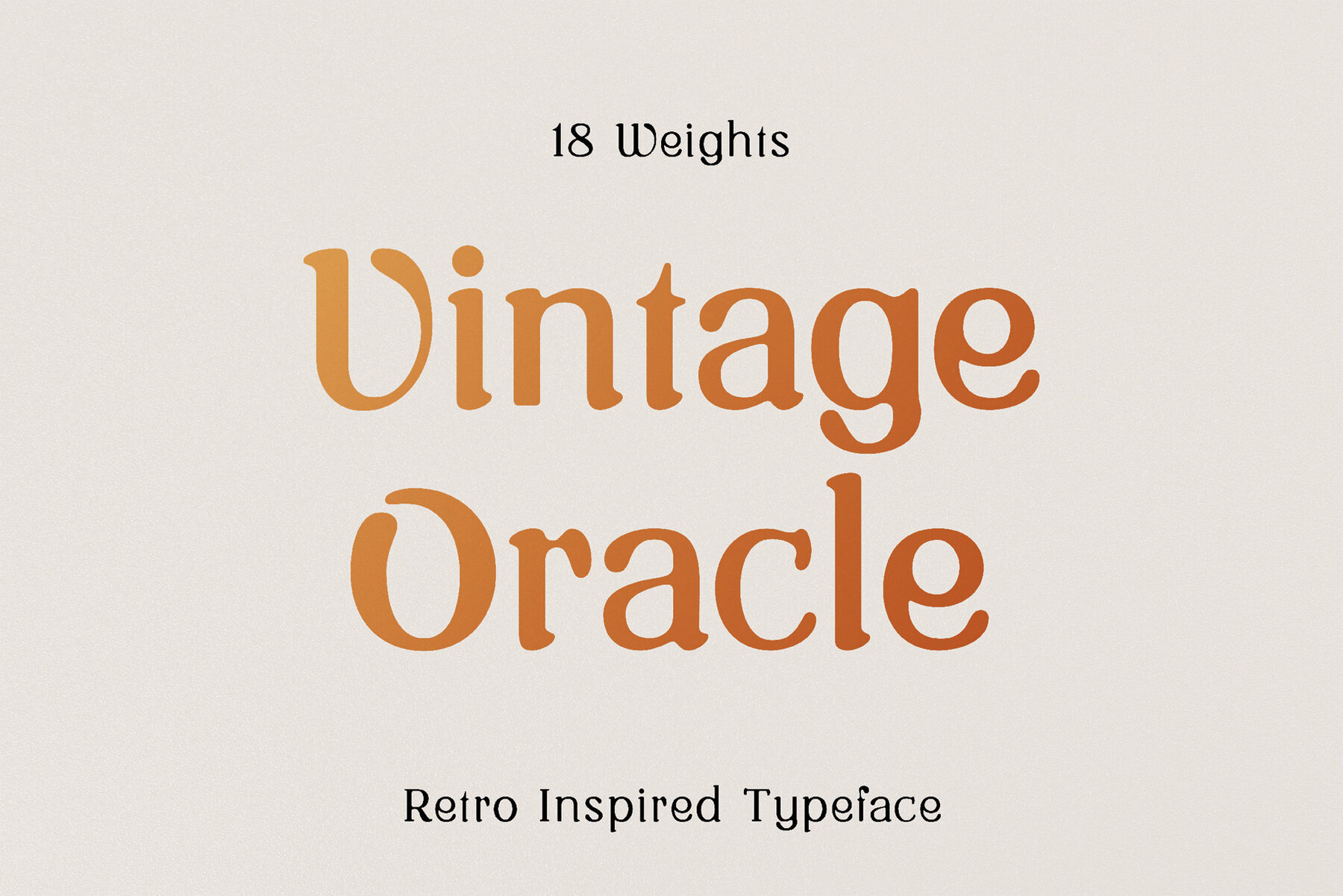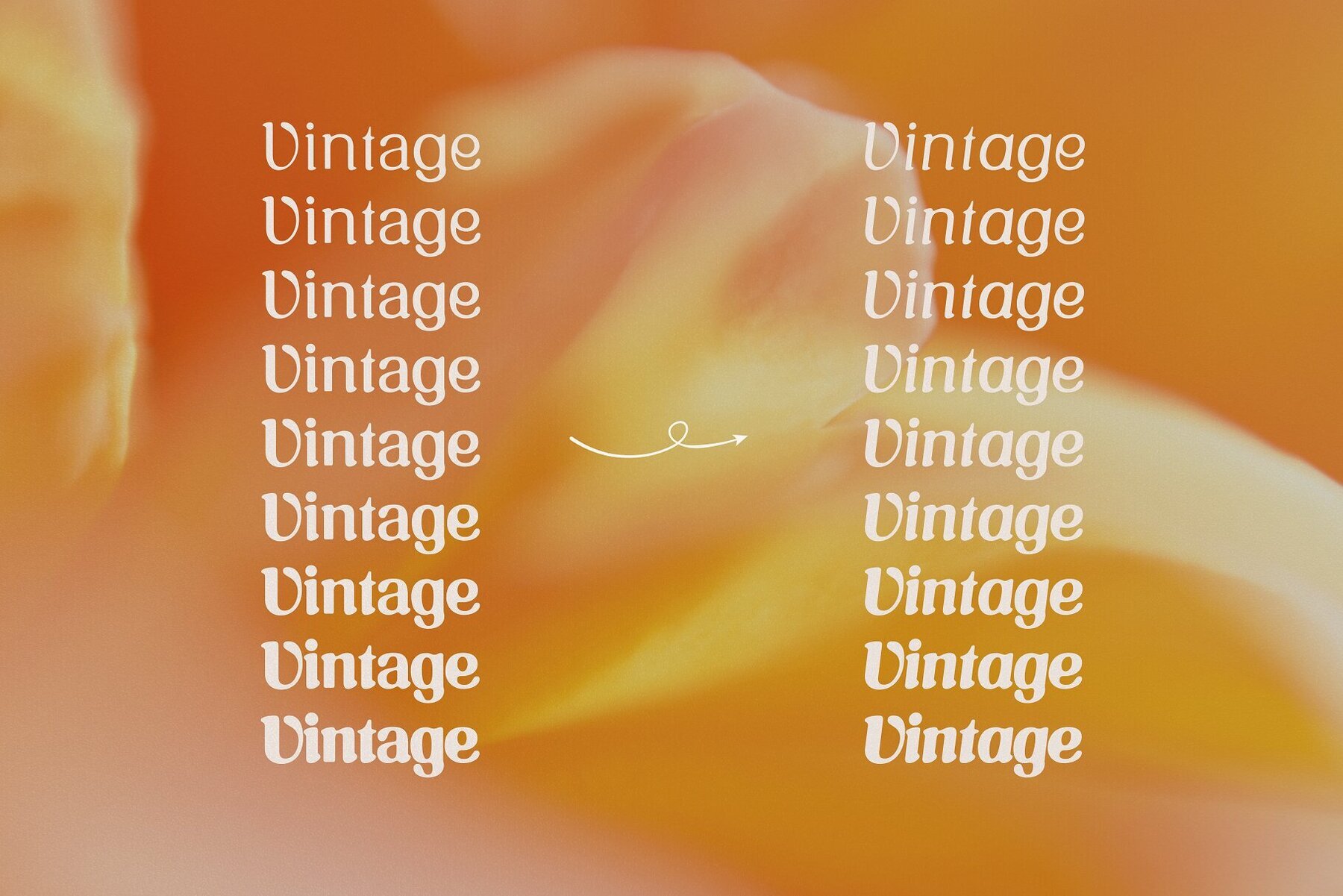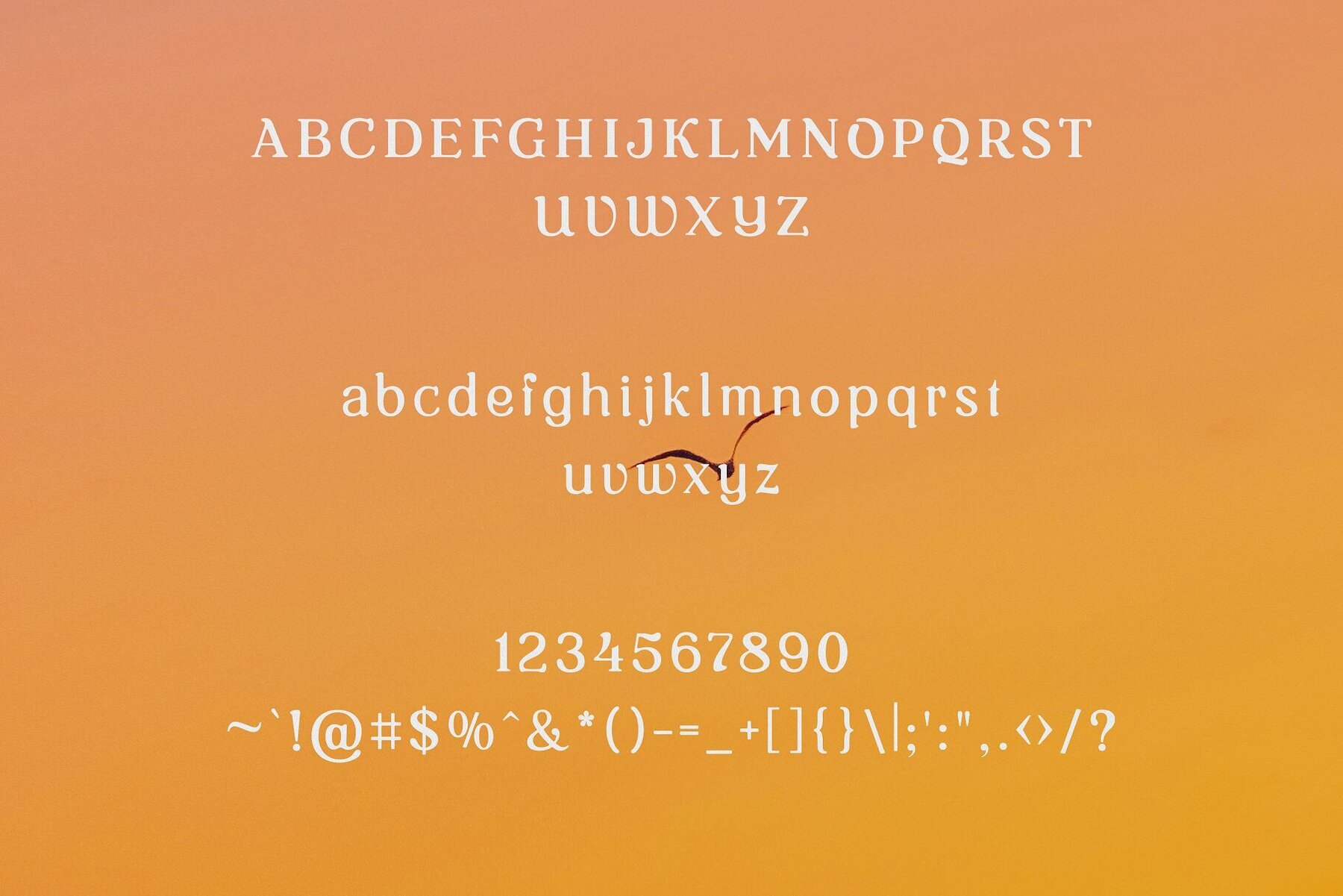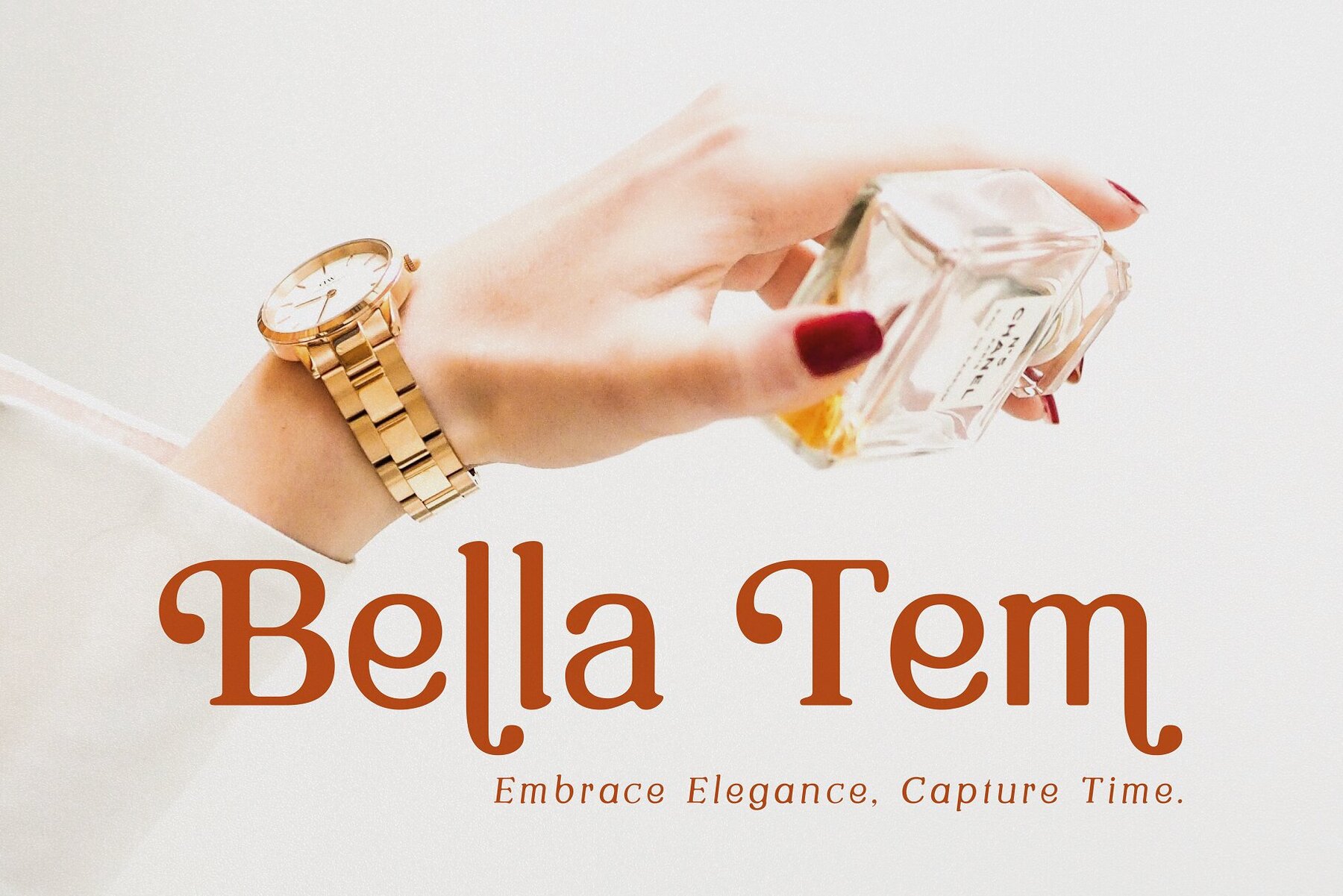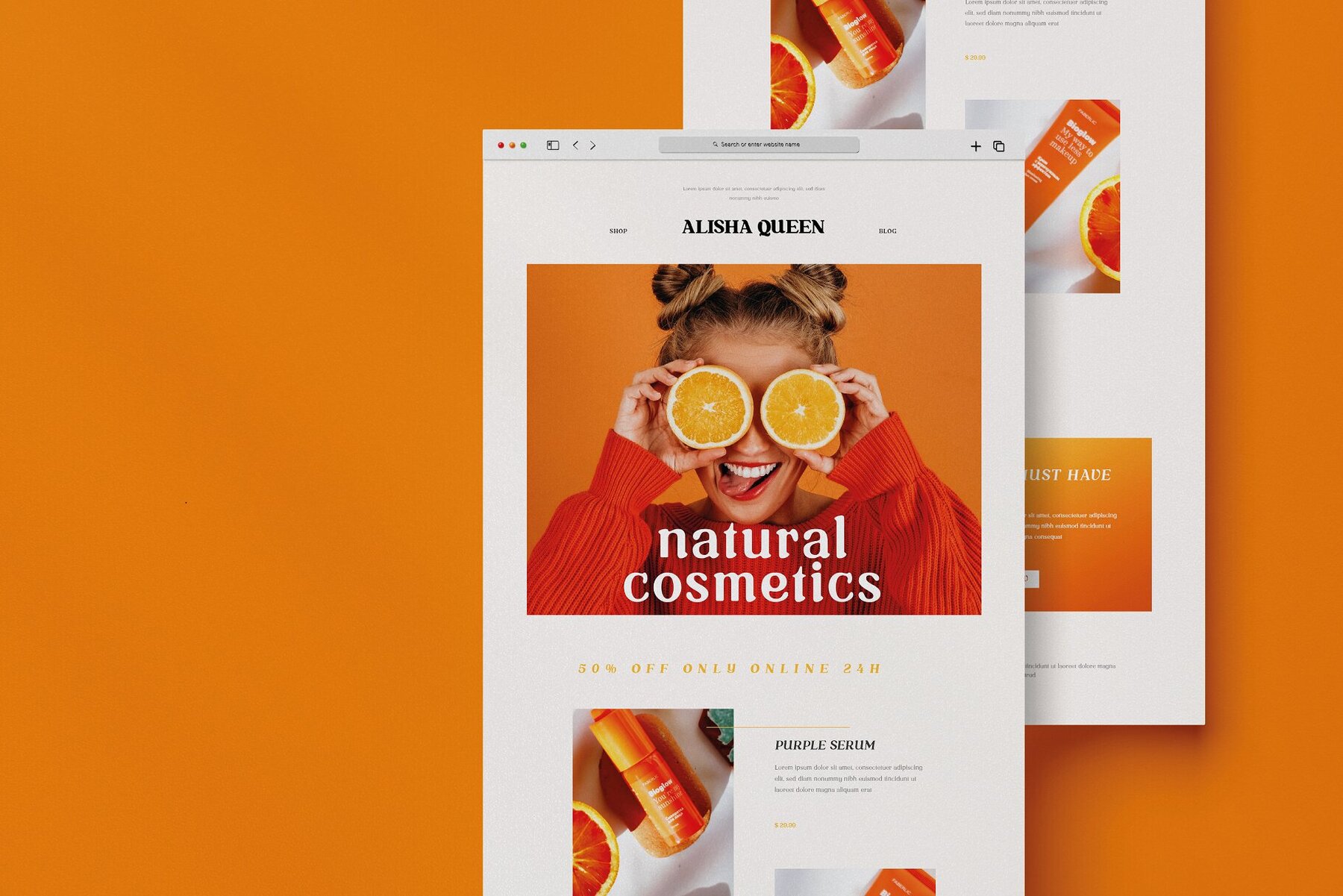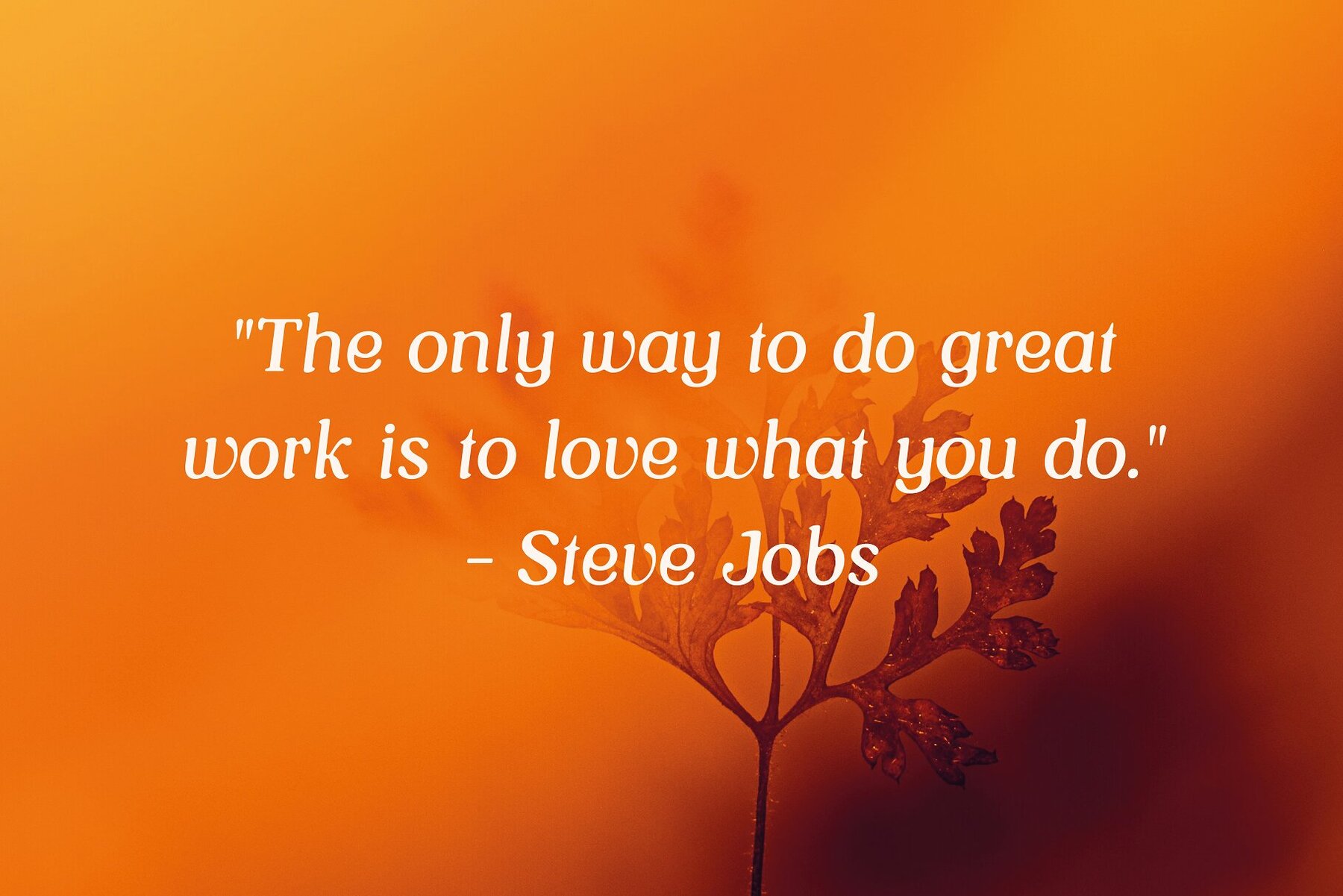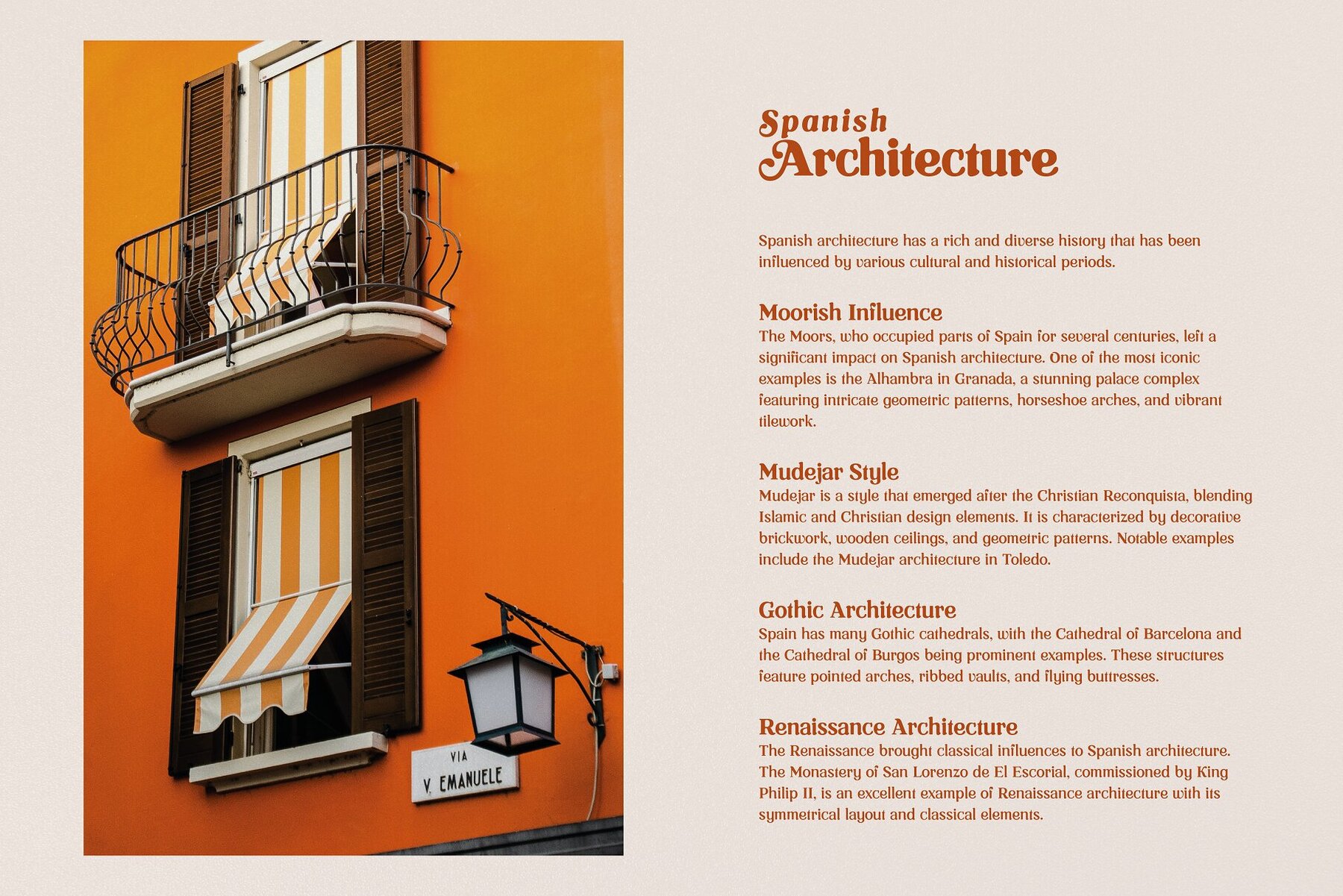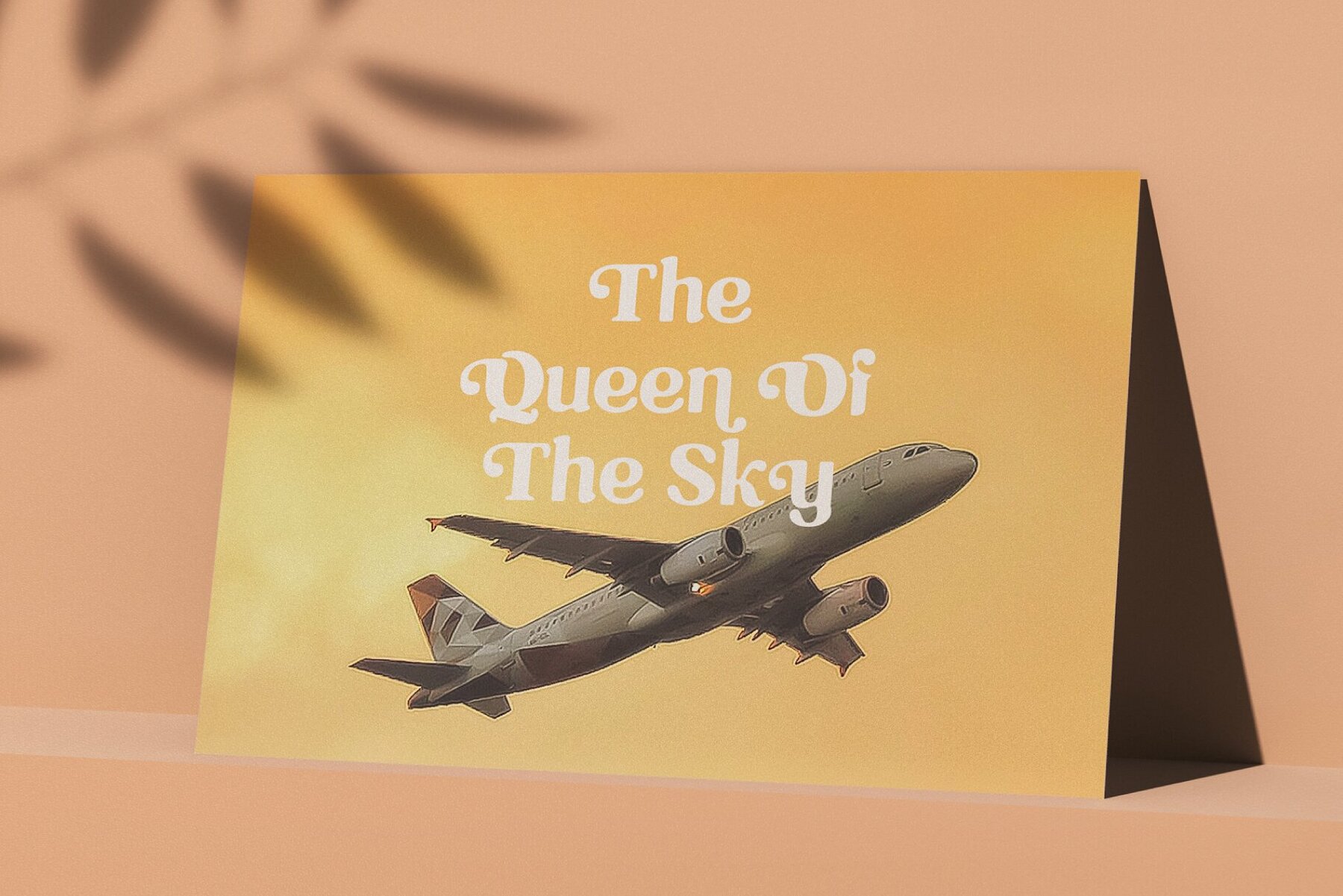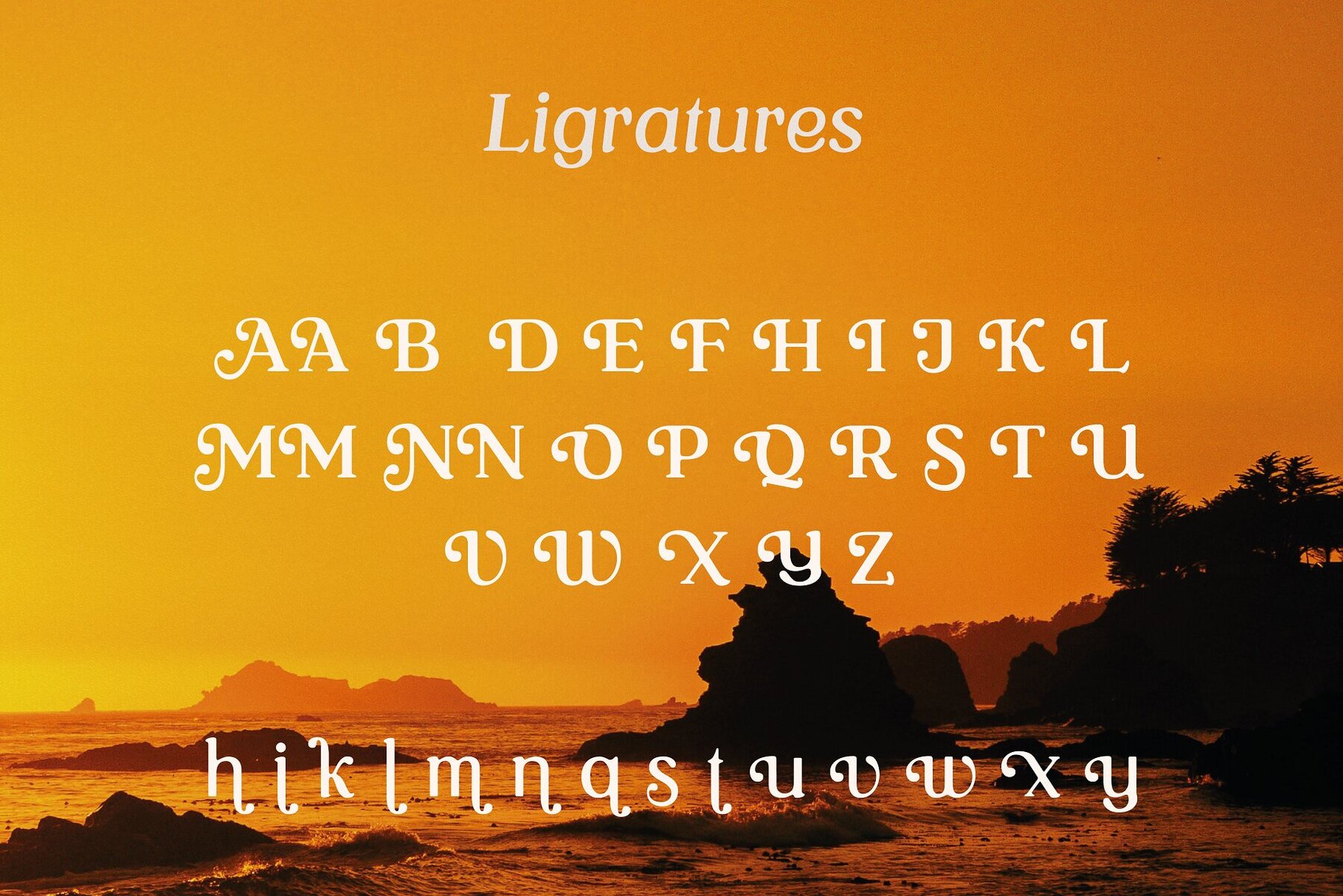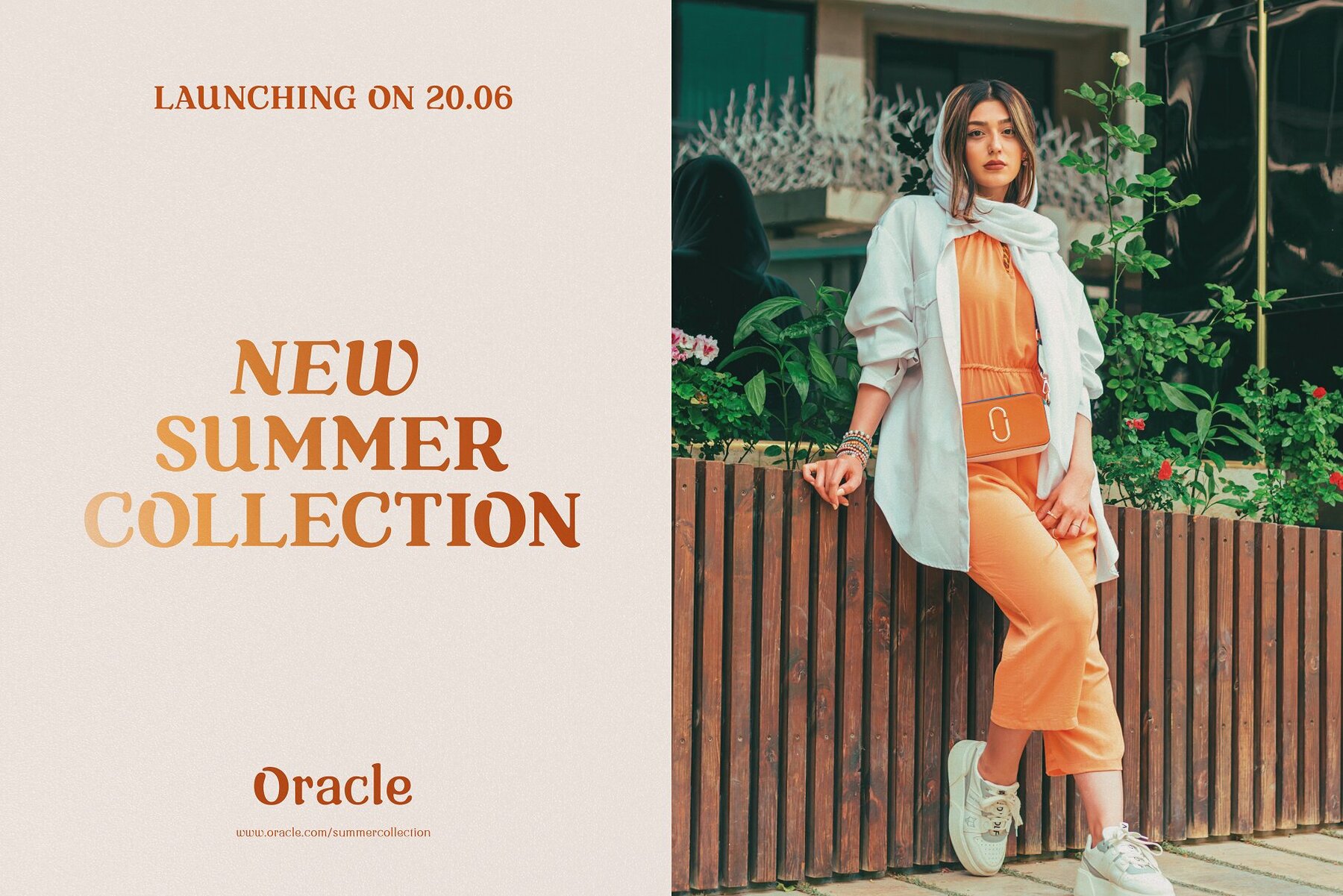
Vintage Oracle Font
Vintage Oracle is a retro-inspired typeface that masterfully combines the charm of yesteryears with contemporary versatility. Offering an impressive array of 18 weights along with variable versions, this typeface is a toolbox of creative possibilities for designers. Each weight is meticulously crafted to capture the essence of vintage aesthetics, while the variable versions allow for seamless adaptation to a wide range of design contexts. The gorgeous, timeless feel of Vintage Oracle makes it perfect for projects that require a touch of nostalgia, from classic branding to contemporary digital design. The versatility of Vintage Oracle lies in its ability to transcend eras; it’s as fitting for creating an old-school vibe as it is for modern, cutting-edge applications. Whether it’s used in bold headlines, elegant invitations, or stylish product packaging, its unique character adds depth and personality. The expansive range of weights and styles makes Vintage Oracle a go-to choice for typographers and graphic designers seeking a font that speaks with both historical elegance and modern adaptability. This typeface isn’t just a font; it’s a bridge between the past and present, offering endless opportunities to create designs that are both nostalgic and refreshingly innovative.